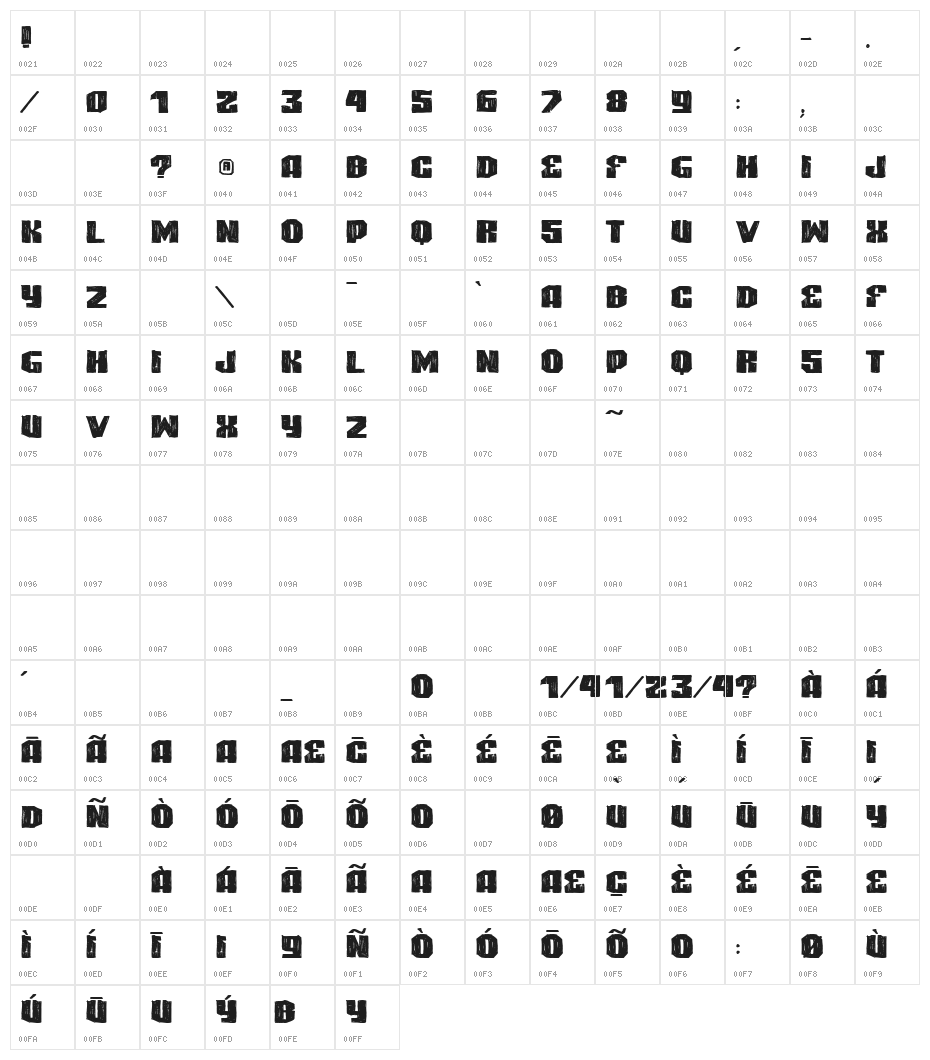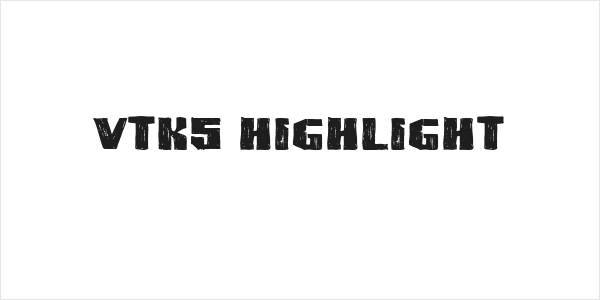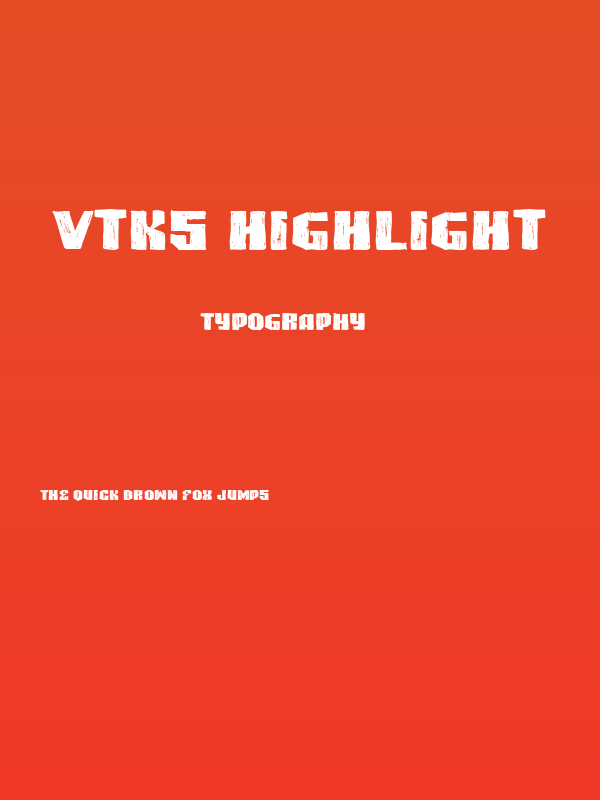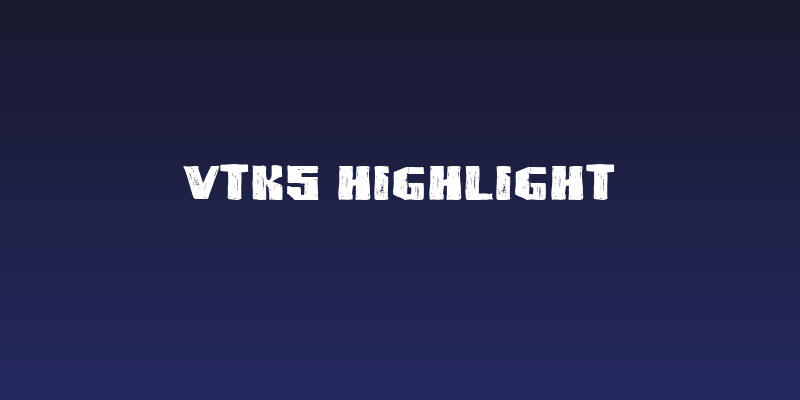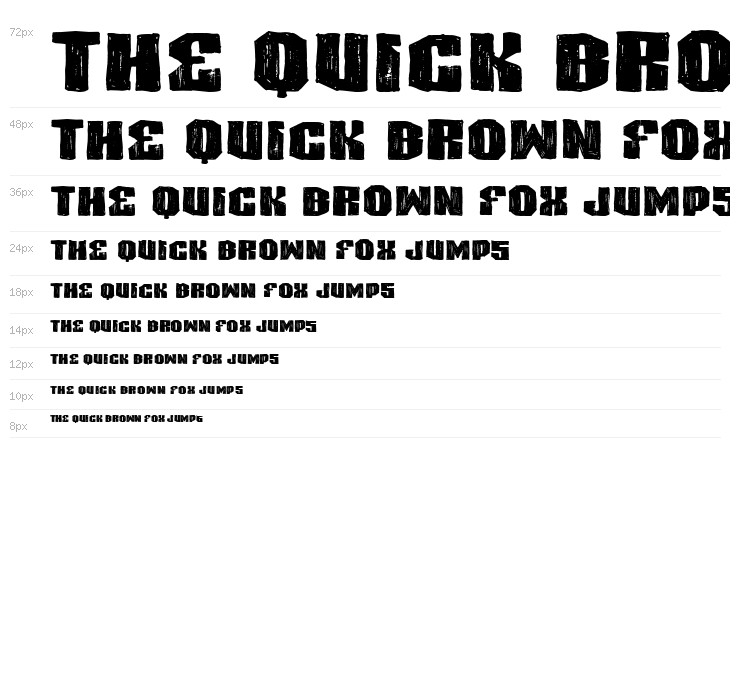
VTKS HIGHLIGHT Font
VTKS HIGHLIGHT Description
This font features a bold, distressed style with a rough, textured appearance that gives it a grunge or urban feel. The characters are blocky and robust, with irregular edges that create a sense of movement and energy. Each letter is uniquely crafted, adding to the overall dynamic and edgy aesthetic. The font maintains a consistent weight throughout, ensuring readability despite its decorative nature. It is well-suited for designs that require a strong visual impact, such as posters, album covers, or branding for edgy or alternative products.
| Overall Style | Grunge, Urban, Edgy |
| Proposed Projects | Ideal for posters, album covers, edgy branding, and urban-themed designs. |